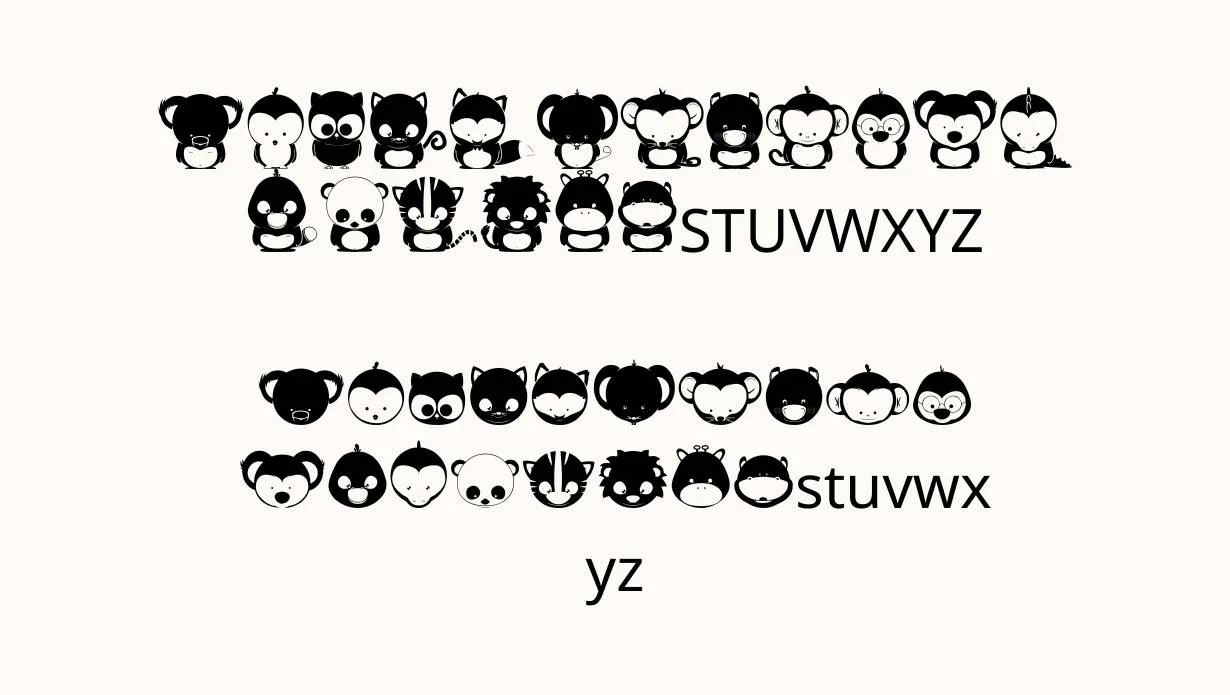
Bring a burst of liveliness to your designs with Animox Font. This playful typeface injects a sense of fun and dynamism into your text, making it perfect for creative projects. Whether you’re designing invitations, posters, or any content aimed at capturing attention,
Animox Font’s animated characters add a touch of excitement. Its unique style ensures that your words stand out, adding a cheerful and engaging element to your work.
| Name | Animox Font |
| Designer | Thomas Boucherie |